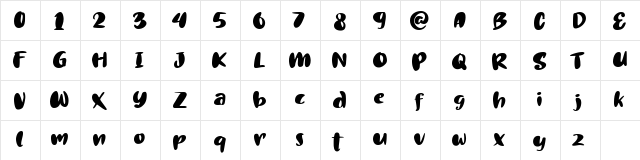
So Sweet Honey Regular
| Designer | Muhammad Sirojuddin . Jogjakarta 2019 |
Design Context for So Sweet Honey Typeface
So Sweet Honey is a composed and adaptable typeface that performs quietly and consistently across a wide range of design contexts.